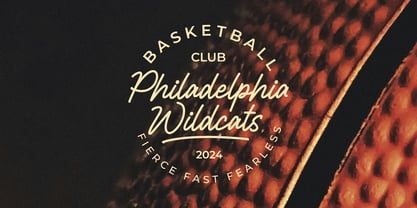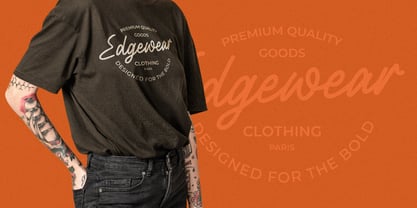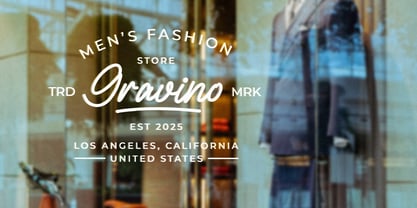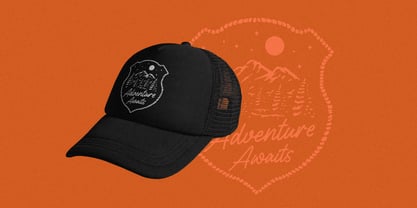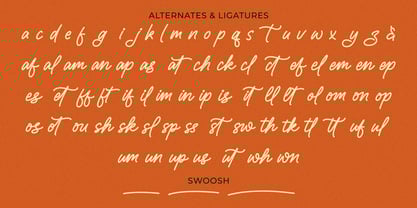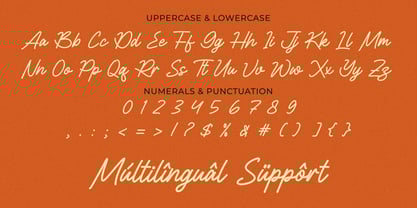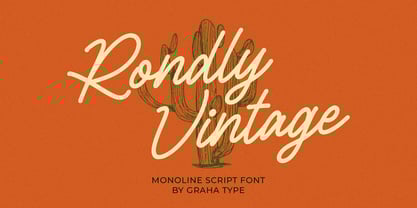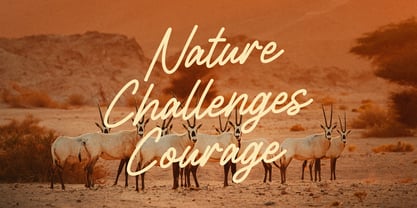
Rondly Vintage
by Graha Type
The Rondly Vintage Font Family was designed by Toni Nugraha and published by Graha Type. Rondly Vintage contains 1 styles. More about this family
Rondly Vintage is a bold monoline script font that seamlessly combines vintage charm with timeless elegance. Its smooth, flowing lines and sturdy letterforms create a perfect balance between classic and modern aesthetics, making it ideal for logotypes, branding, merchandise, and other design projects. Whether for packaging, apparel, or posters, Rondly Vintage adds a professional and authentic touch to any creative endeavor, delivering a standout look with a nostalgic yet enduring appeal.